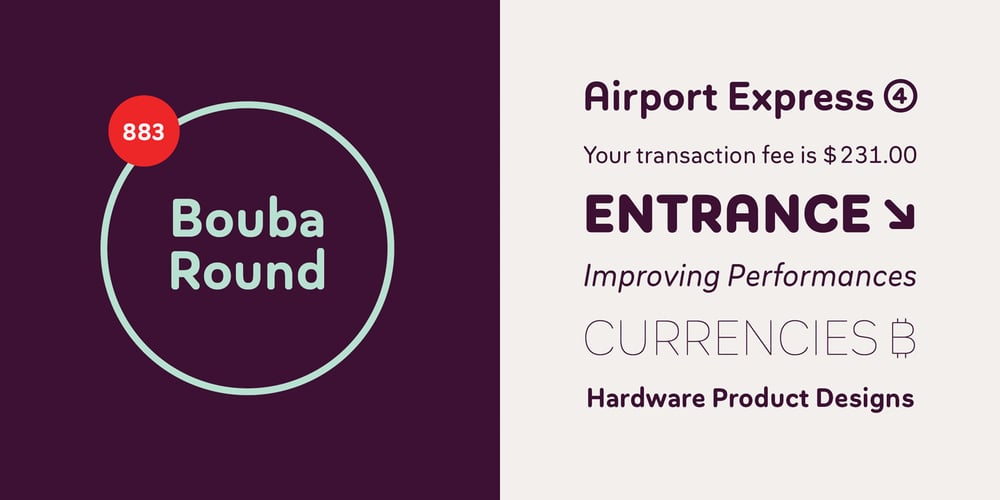
Bouba Round Font Family was designed by Hannes von Döhren and published by HVD Fonts. Bouba Round contains 12 styles and family package options. Bouba Round is more than it seems on first sight. It combines the best of two worlds, having an expressive character with its round and friendly shapes and performing great in every typographic aspect. The type family is a true workhorse, ready for serious typography. Creating a round typeface with a great reading experience has been our guiding principle throughout the design process — Bouba Round needed to work in small sizes and long text as well as in Headlines. To ensure a great reading experience in most languages, Bouba Round has a huge language support including nearly all latin based languages, Greek and Cyrillic. On top of an extensive language support, Bouba Round is loaded with a lot of icons, arrows and graphic elements for modern UI/UX design.